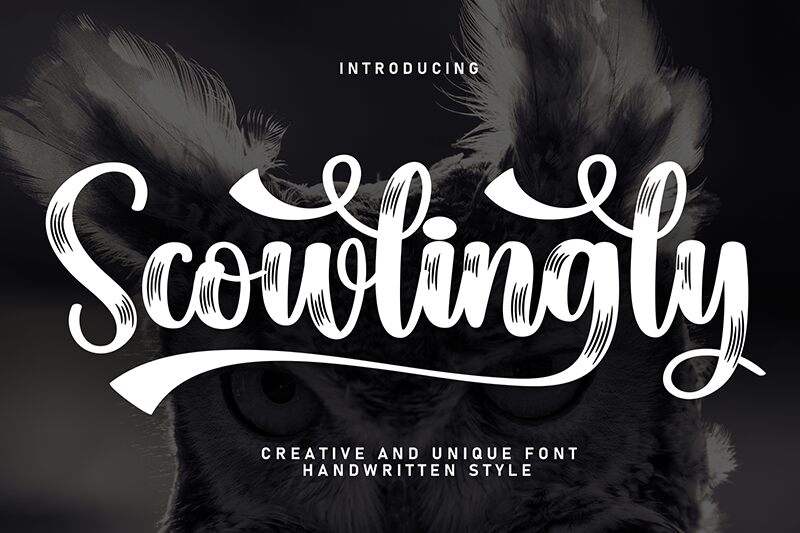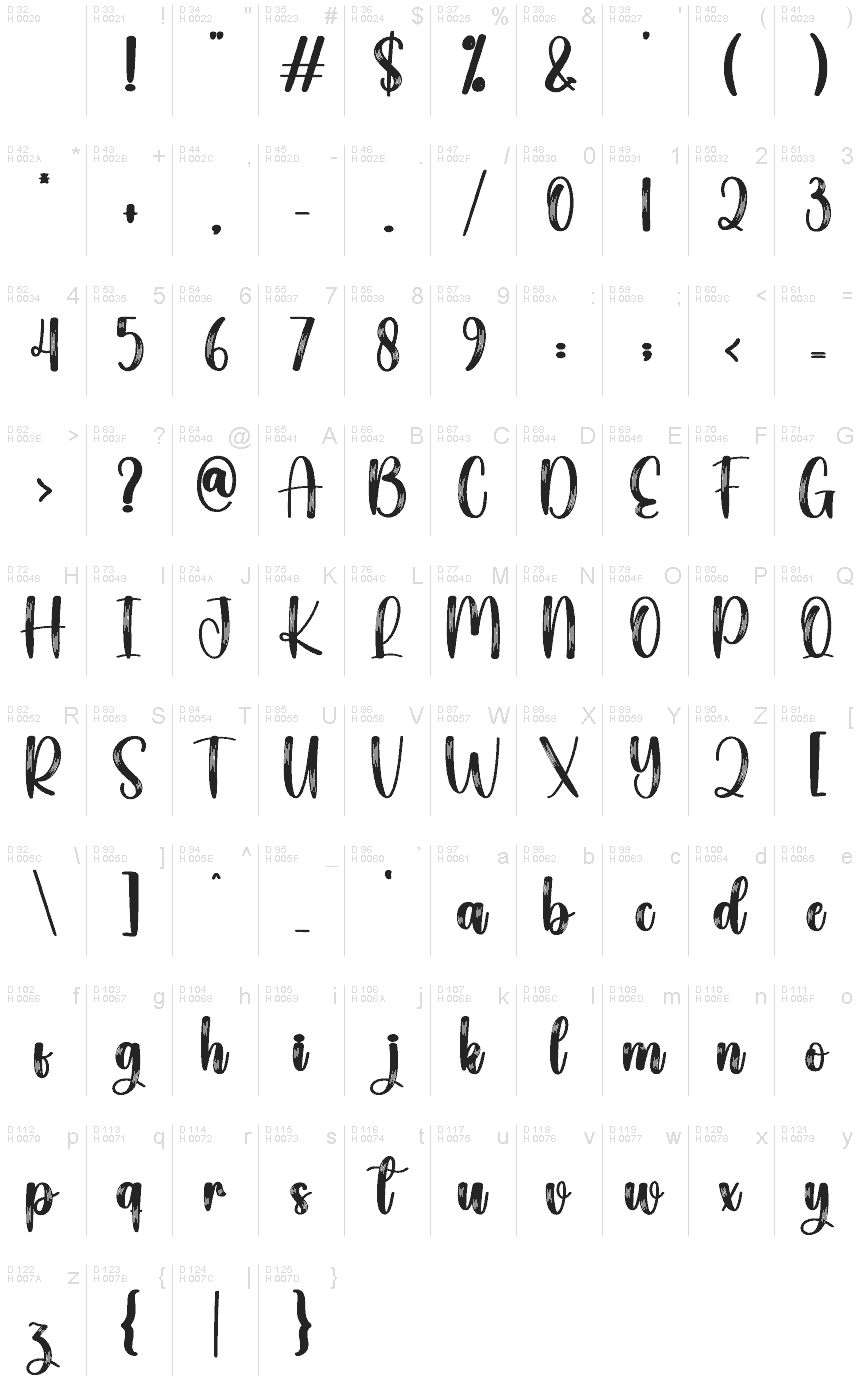
Scowlingly
Scowlingly font by Scratchones is a textured brush script font whose elegant style holds a retro-inspired side. The condensed letters have an even continuous flow along the horizontal line which is why this brush font lacks an obvious calligraphic look. However, it still makes for a memorable piece added to any project that needs an artistic flair.
A tragically sad, perhaps ironic effect achieved by the original horror context fits perfectly within Halloween-related projects. Make use of it in posters, flyers, book covers, CD covers, events and parties invitations (not necessarily spooky ones), stationary items designs and more surprising ideas where such creativity can make considerable difference.